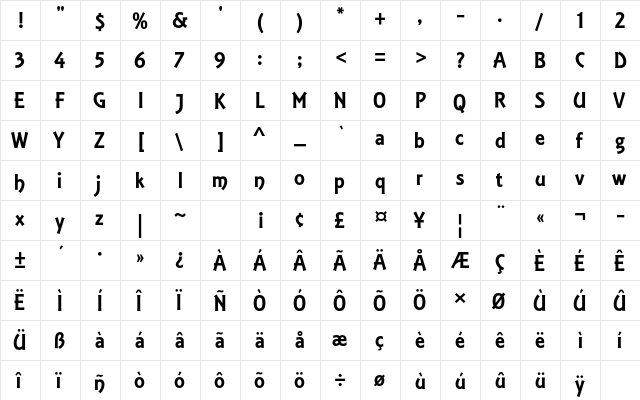
Equinox Std Regular
| Designer | Vince Whitlock |
Design Context for Equinox Std Typeface
Equinox Std offers clean, dependable letterforms without strong stylistic allegiance, making it a practical choice for designers who need flexibility.